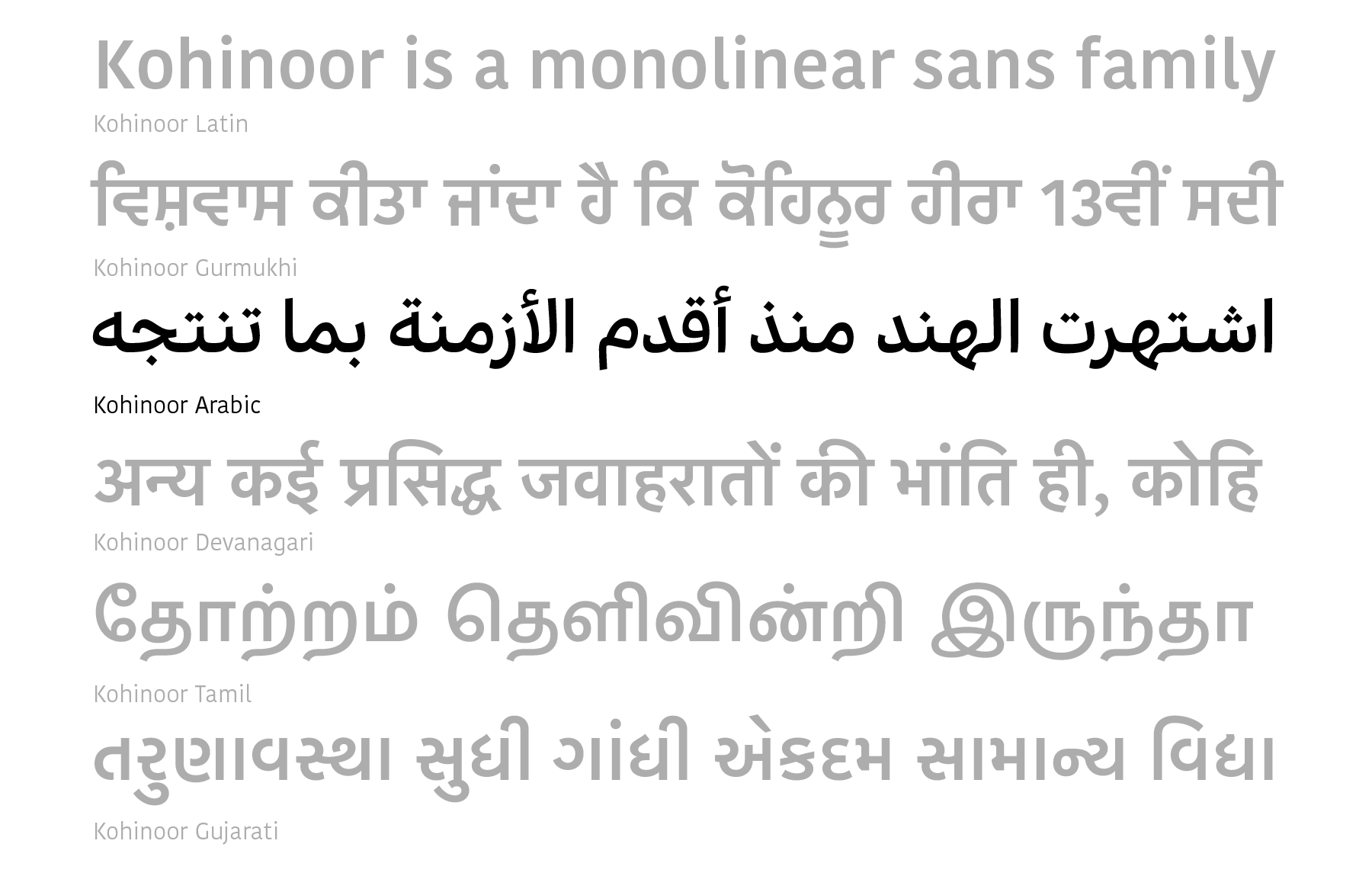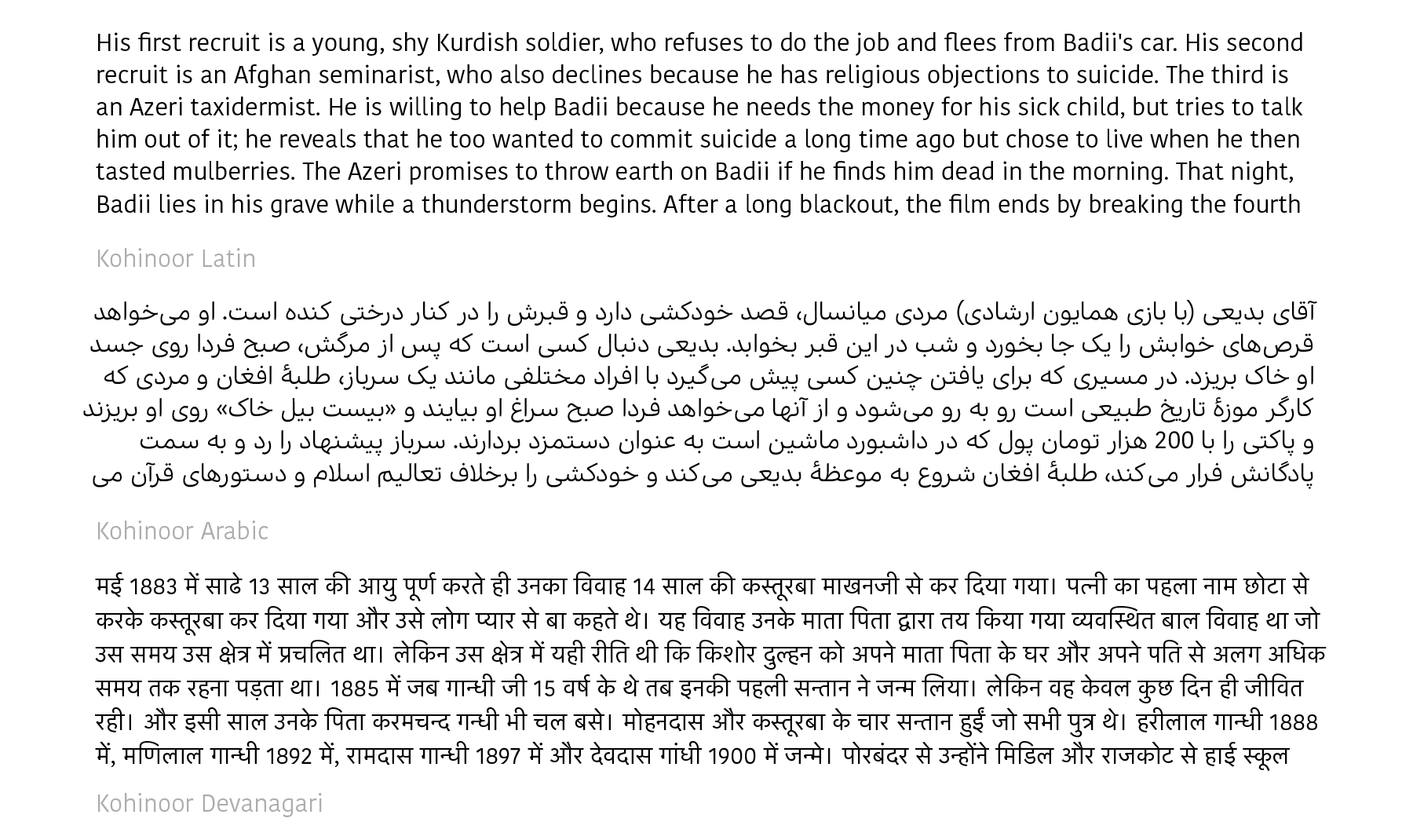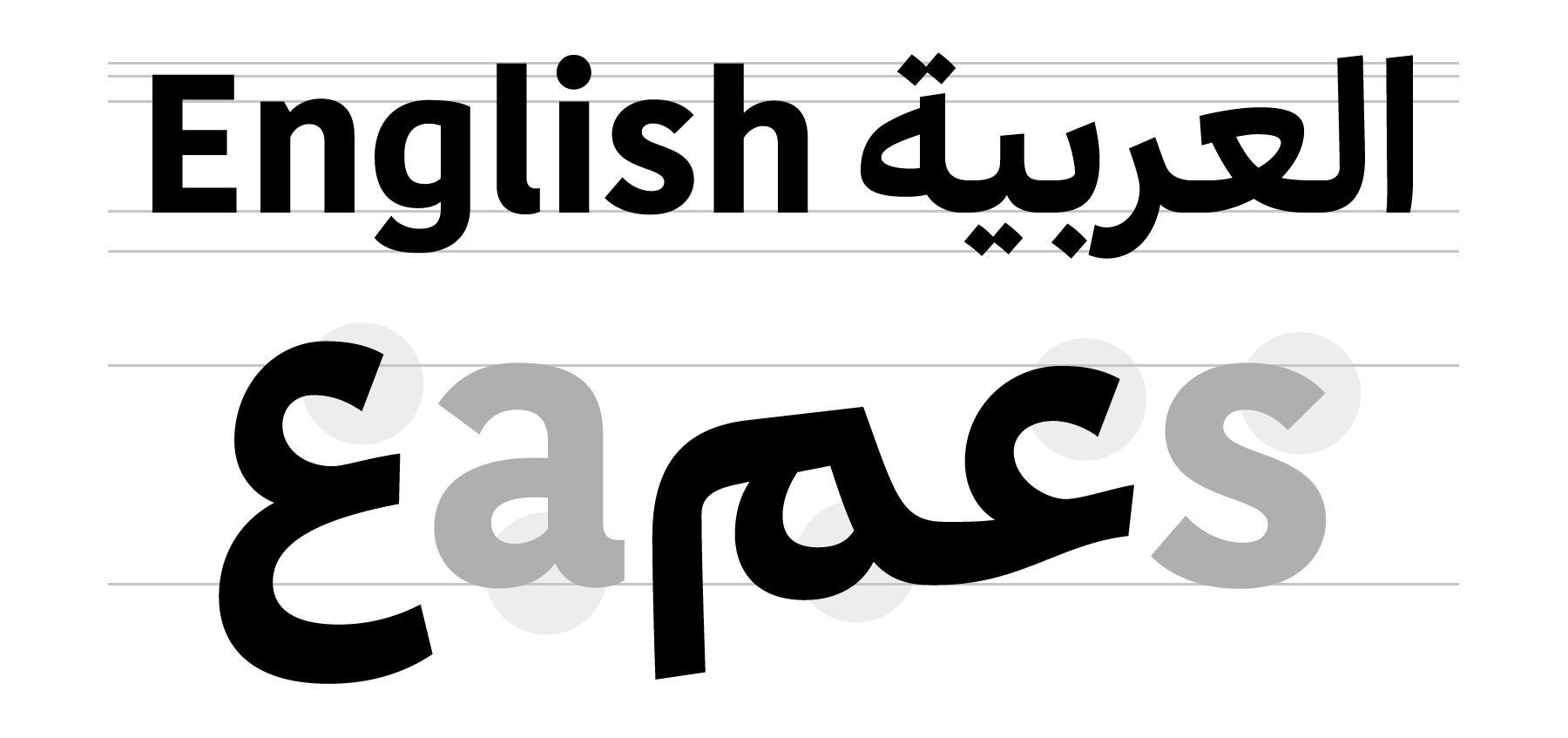
Kohinoor Arabic is the second Arabic-script typeface from the Indian Type Foundry; our first was Diodrum Arabic, which we released earlier this year. This is also the sixth member of Kohinoor Multiscript, the very first of our super families. Over the past few years, we published variants of the Kohinoor design for the Latin script, as well as for Devanagari, Gujarati, Gurmukhi, and Tamil. Kohinoor harmoniously translates a single aesthetic across each component script.
We started the Kohinoor project with the goal of supporting all 11 of India’s official writing systems, and we’re well on our way to meeting that. Taken together, all of our Kohinoor fonts currently support hundreds of languages, natively spoken by more than two billion people. Kohinoor is an ideal choice for text-heavy multilingual projects, including applications in the areas of corporate design; editorial design; electronic-embedding in apps; navigation and signage systems; product instruction manuals; television subtitling; and UI/UX. Kohinoor Arabic offers a similar colour to that present in text set with any of our other of Kohinoor script variants.
To describe Kohinoor Arabic in ‘Latin’ terminology, its letterforms are sans serif. Like the other Kohinoor variants, Kohinoor Arabic comes in five styles, ranging in weight from Light to Bold. Kohinoor Arabic was designed by Bahman Eslami, who is also responsible for our earlier Diodrum Arabic design, as well as the award-winning Harir typeface for Typotheque. Eslami is a graduate of the Royal Academy of Art (KABK) in The Hague, and he originally hails from Iran.
Thanks to its clear appearance, Kohinoor Arabic is easy to work with and inviting to read. Its letterforms are drawn in a Naskh style. Since this is the style used most often in today’s digital Arabic-language typesetting, we’re calling the family Kohinoor ‘Arabic’. Nevertheless, the fonts include all of the glyphs necessary for setting the Persian and Urdu languages – Urdu is one of India’s official languages, after all. We hope Kohinoor Arabic appeals to all users of the Arabic script, no matter where they are in the world they are, or what language they speak.
The counters in Kohinoor Arabic’s letters are large and open, placing an emphasis on the middle sections of a line of text. This makes Kohinoor Arabic appear friendly and more legible, too. The shapes of the vowel marks are not fussy. The letterforms’ strokes are low-contrast; however, as in the other Kohinoor families, there is still some stroke modulation. This is visible most often at the junctures of two strokes, and it keeps the typographic color from getting too dark. Many of Kohinoor Arabic’s strokes begin or end with lightly-sheared lines. These subtle angles add a trace of the calligrapher’s hand back into the generally-static language of sans serif types. The same may be said for the design’s Arabic-script dots and other marks.